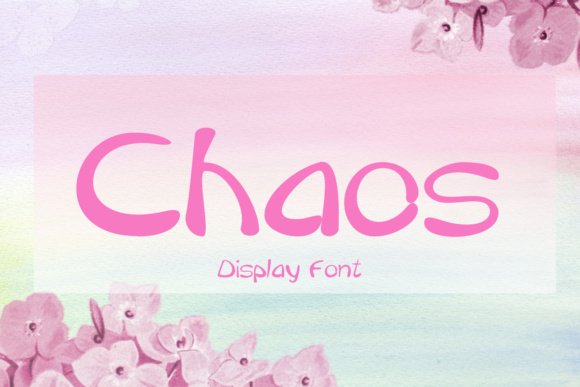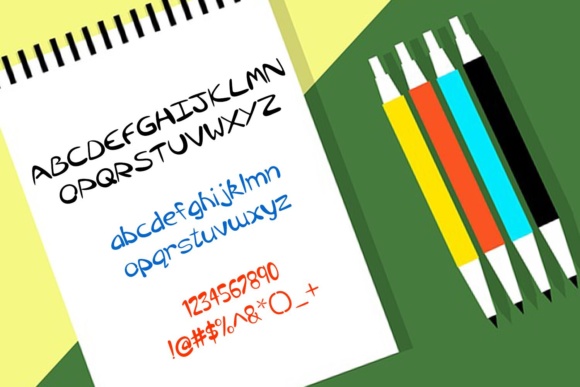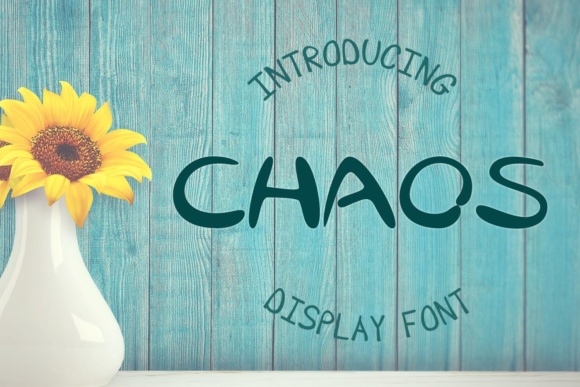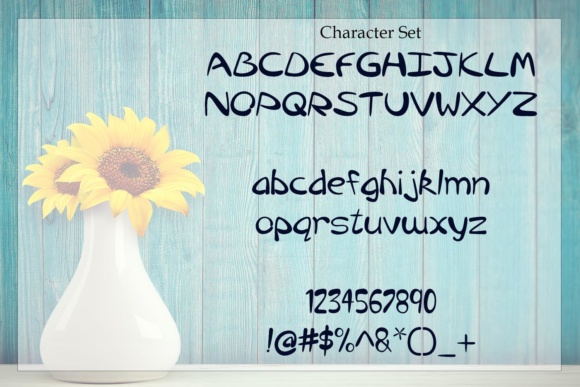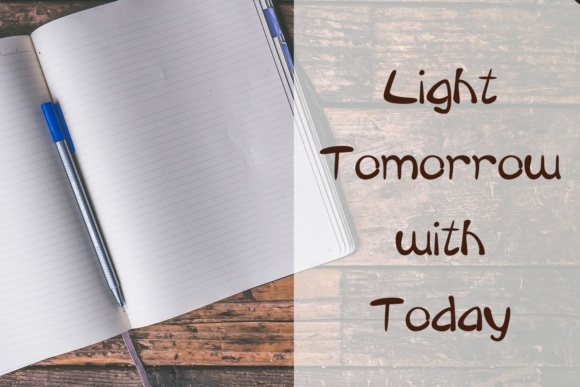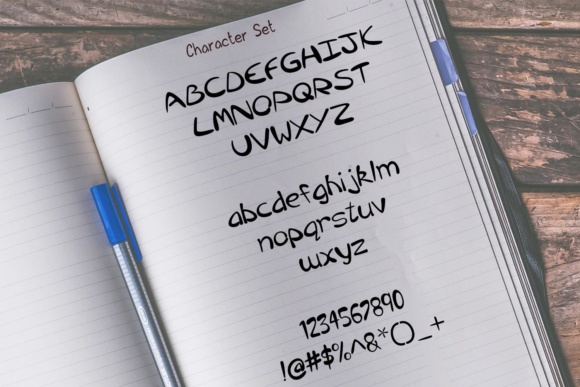
The Perfect Blend of Fun and Legibility: Unleashing Chaos Font
Have you ever been working on a design project, pouring over countless iterations, and suddenly, a spark of creativity hits you? You envision a playful, whimsical aesthetic that captures the essence of your brand’s personality. For designers like you, finding the right font can be the difference between a project that soars and one that falls flat.
Enter Chaos Font, a charming display font designed to bring a smile to your audience’s faces. With its bouncy feel and effortless readability, Chaos Font is the perfect companion for projects that need a friendly, light-hearted appeal. Whether you’re crafting a social media campaign, designing a children’s book, or creating a brand identity, Chaos Font is an invaluable asset in your design toolkit.
- Unique Characteristics: The font features a unique blend of geometric and organic elements, resulting in a distinctive, modern aesthetic.
- Kerning and Ligatures: The font includes advanced kerning and ligature features, ensuring smooth text flow and optimal readability.
As a designer, I was excited to try out the Chaos Font, but my experience was a mixed bag. Here are my thoughts:
- Unique character set: The Chaos Font has a distinctive set of characters that add a touch of whimsy to any design.
- High-resolution support: I was impressed by how well the font scaled up to large sizes without losing any of its charm.
- Customizability: The font comes with a range of OpenType features that allow for some really interesting effects.
- Readability issues: At smaller sizes, the font can be a bit difficult to read, especially for long blocks of text.
- Lack of consistency: The font’s irregularity can be both a blessing and a curse – while it adds character, it can also make it harder to use in certain situations.
- Not suitable for body text: While the Chaos Font is great for headlines and titles, I wouldn’t recommend using it for large blocks of body text.
Overall, the Chaos Font is a bold and eye-catching choice that’s perfect for designers who want to add a touch of personality to their work. However, it’s not without its limitations – use it sparingly and with caution, and you’ll be rewarded with some truly unique designs.
For a more dramatic look, combine Chaos Font with bold colors and contrasting backgrounds.
Use the “Distort” and “Transform” tools to manipulate the text and create unique, chaotic effects.
For a more dynamic presentation, combine Chaos Font with animations and transitions.
Chaos Font is ideal for:
- Adding a touch of whimsy and playfulness to designs.
- Creating a sense of urgency or chaos in marketing materials.
- Designing posters, flyers, and other promotional materials.
Remember to balance Chaos Font with other design elements to avoid overwhelming the viewer.